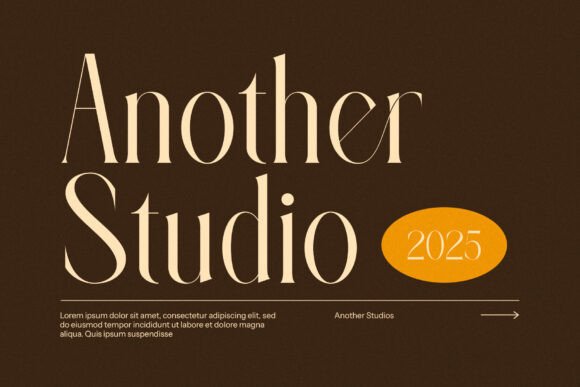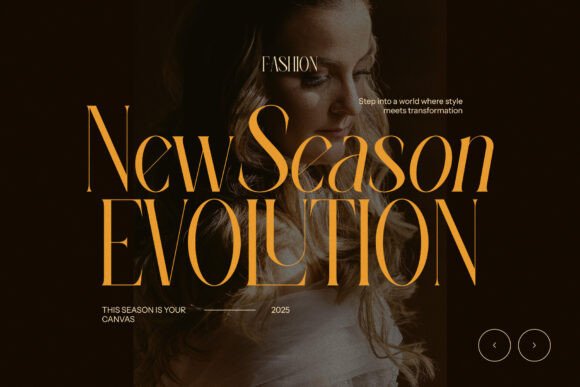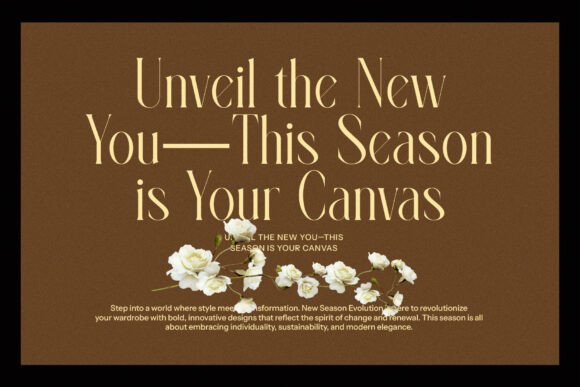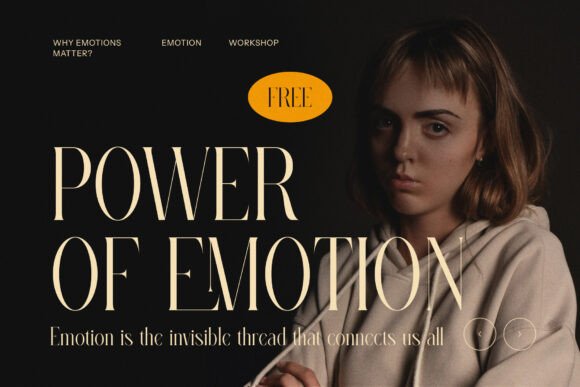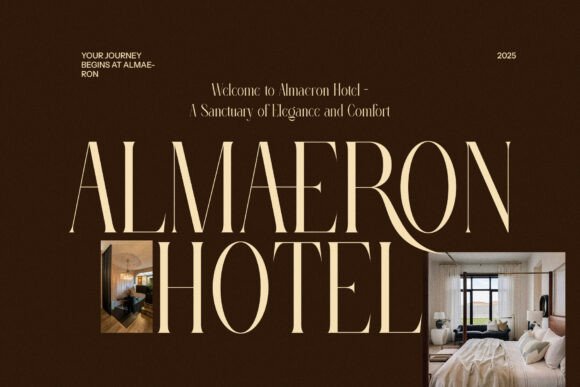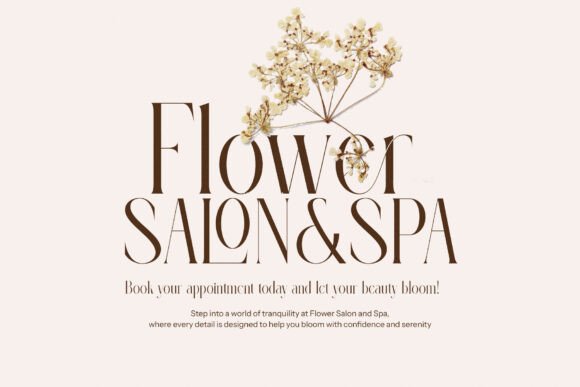
Introduction to Aerok Font
Aerok is a sophisticated typeface that combines modern aesthetics with timeless elegance.
Its sleek design features refined serifs, graceful curves, and distinctive ligatures, making it a versatile choice for a wide range of creative projects The fontโs unique alternates and stylistic options allow for effortless customization, ensuring your designs stand out with a polished and professional touch.
Aerok Font offers exceptional quality and versatility, making it a valuable addition to your design toolkit. Whether you’re creating for personal projects or commercial use, Aerok Font delivers professional results.